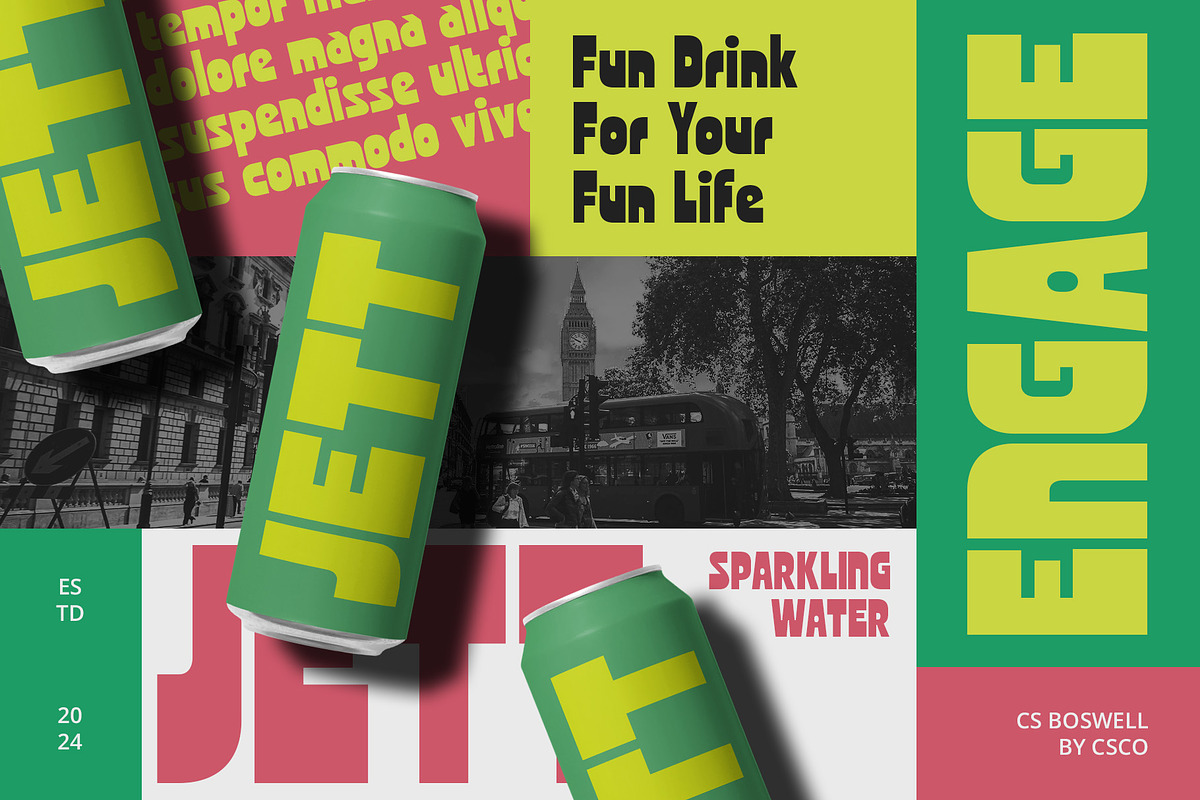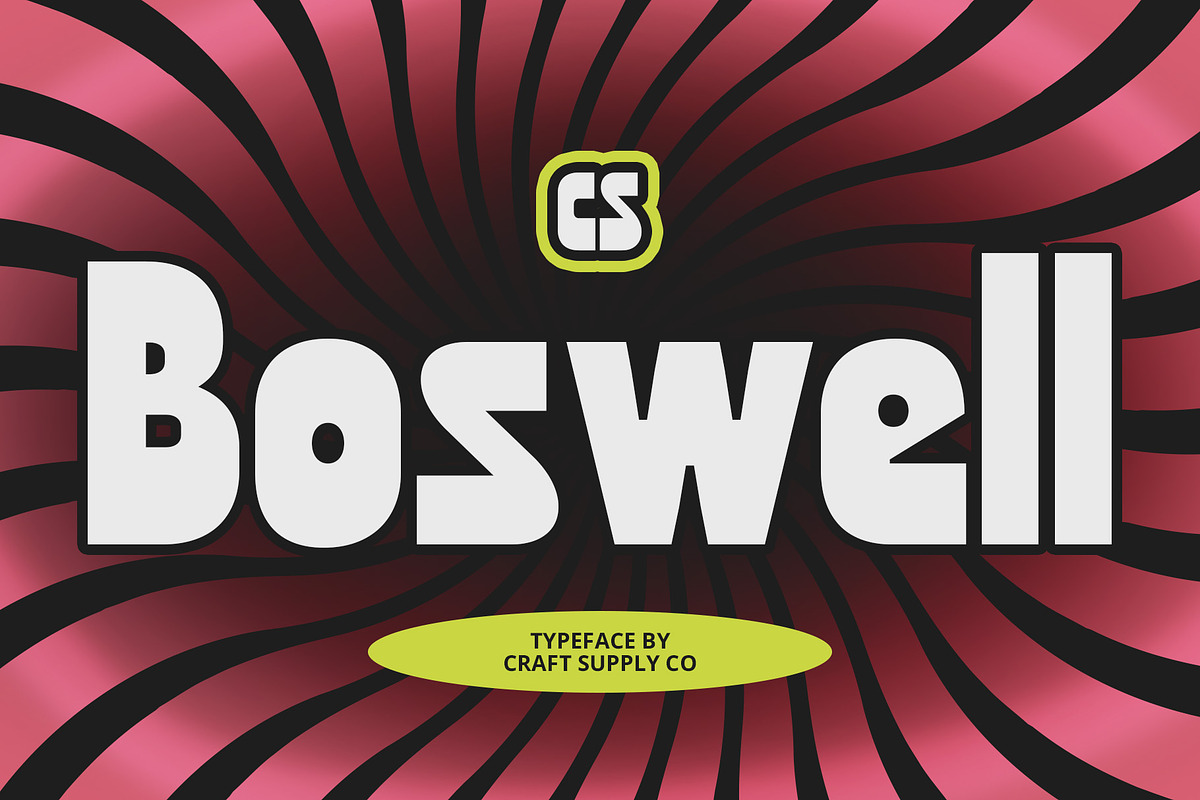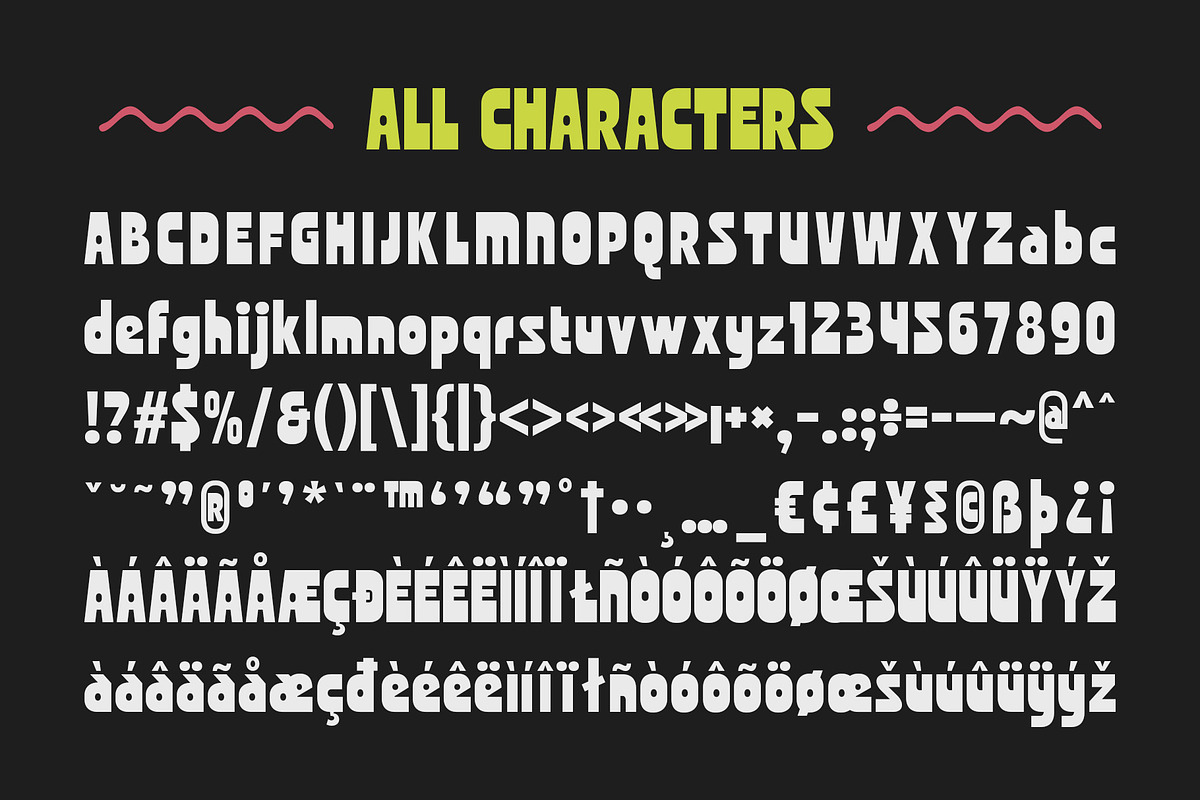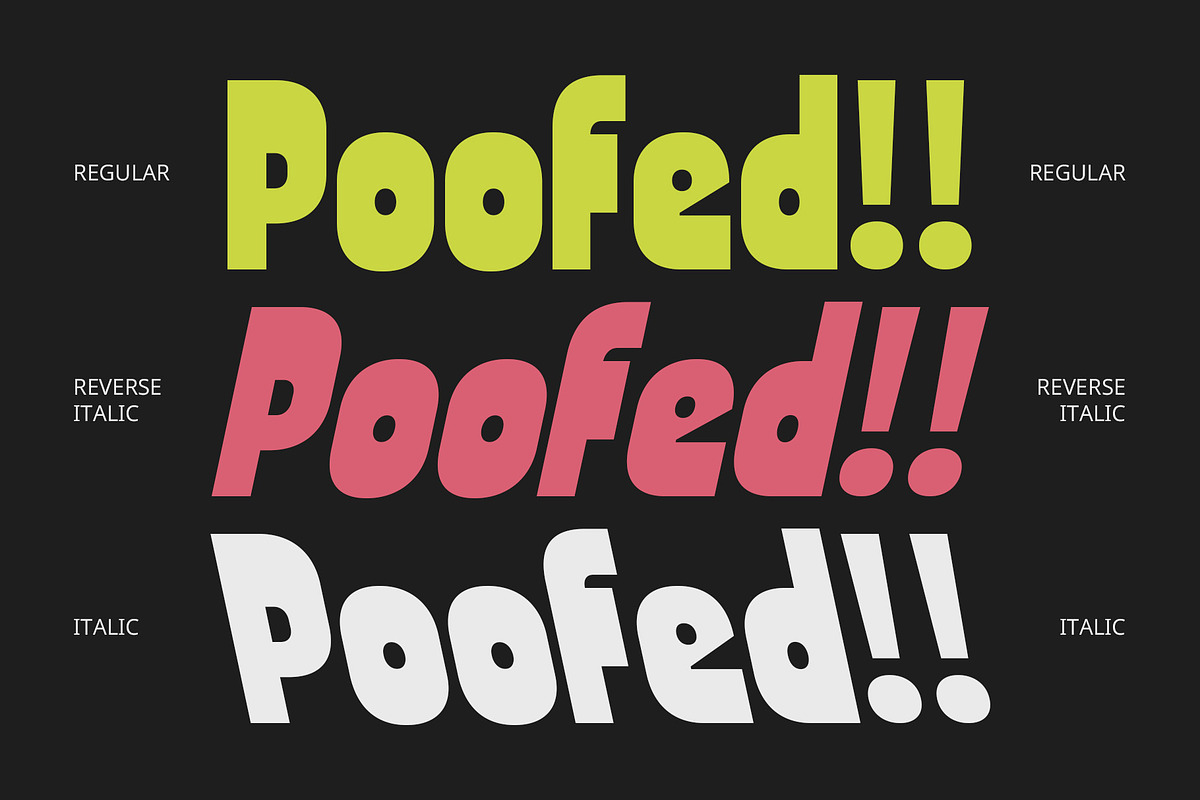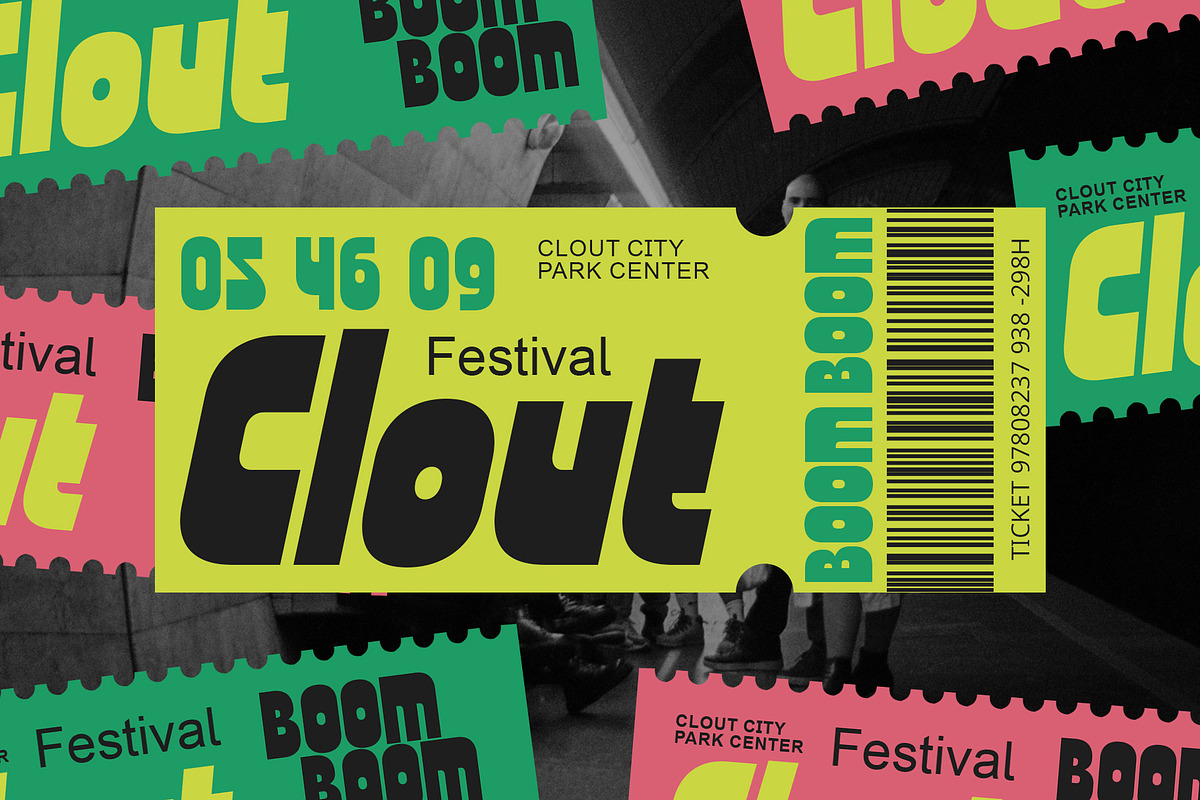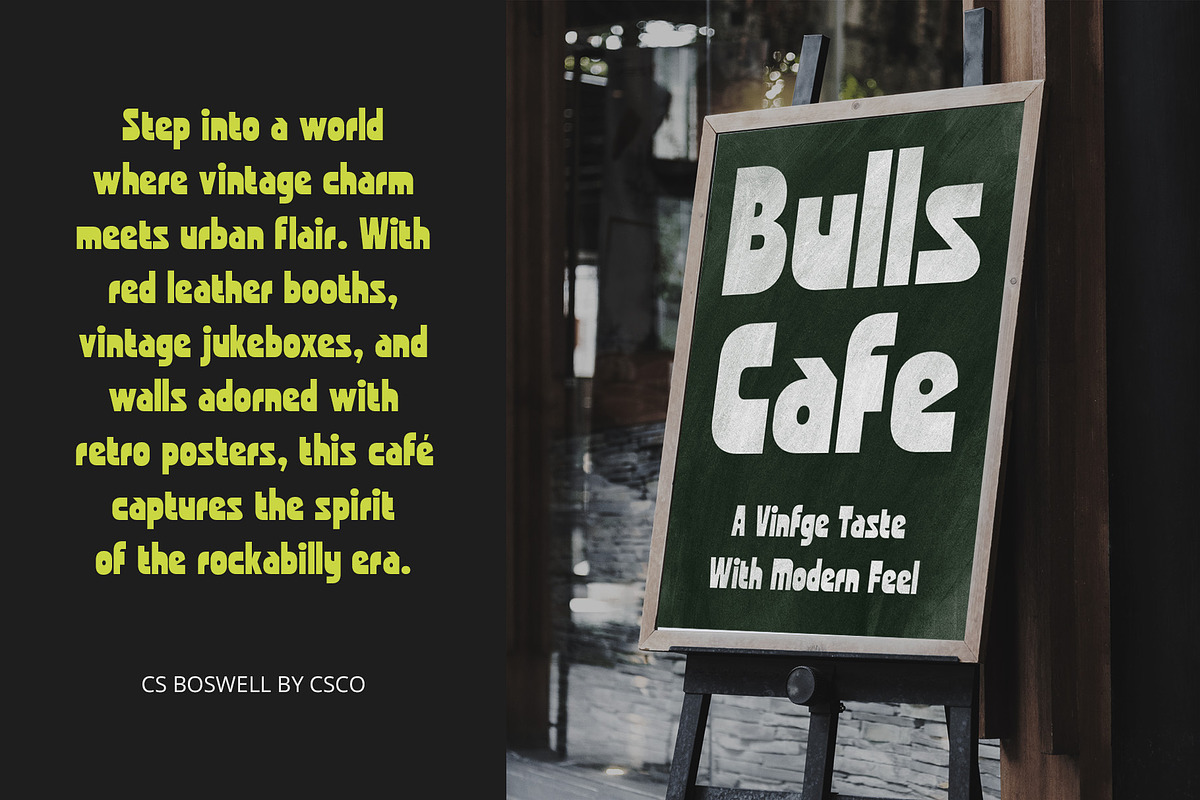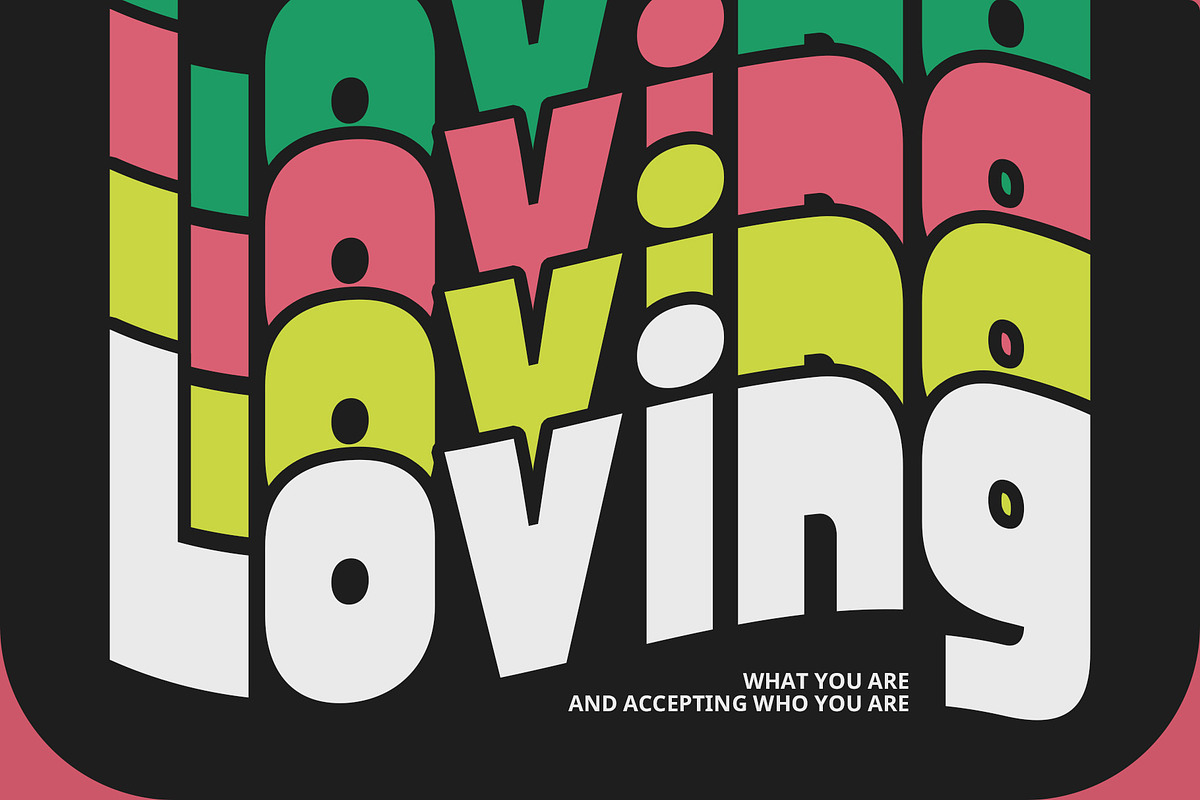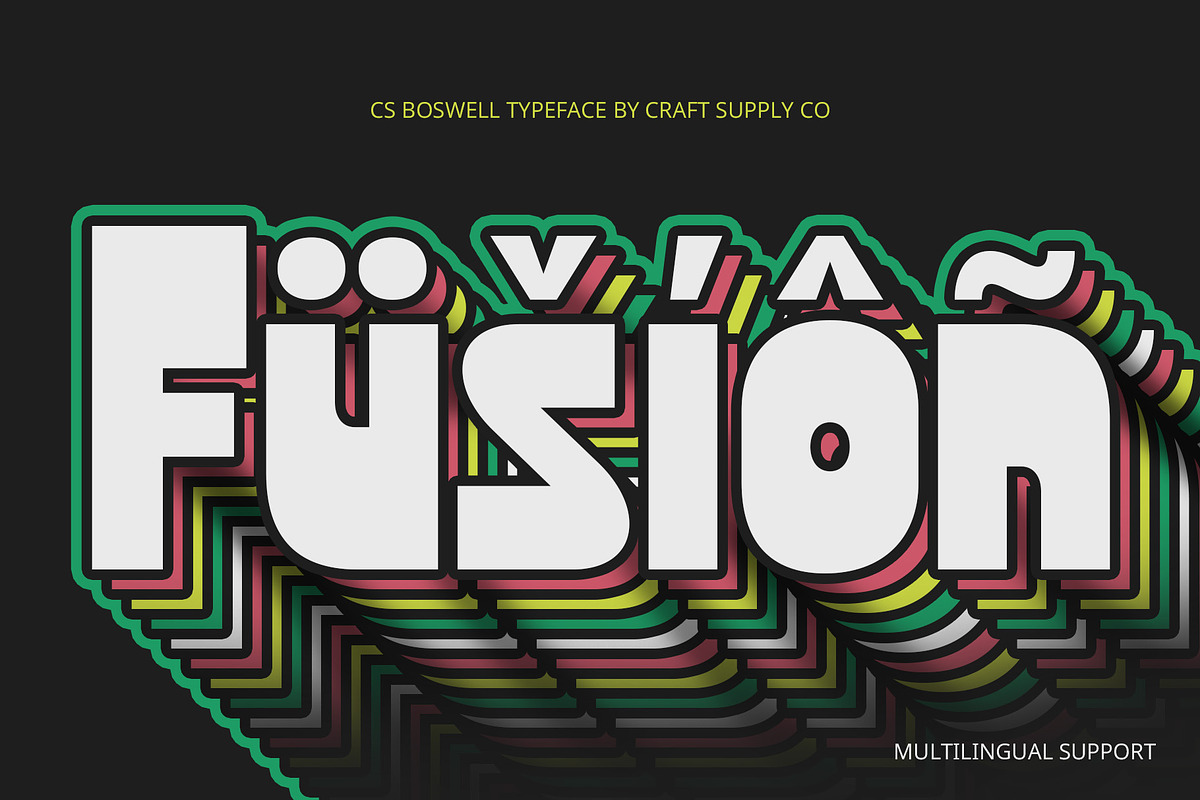
CS Boswell – Bold Font
CS Boswell – Bold Font: Bold, Friendly, and Funky Sans Serif
Modern Sans Serif with Bold Strokes and Playful Details CS Boswell is a sans serif font that embraces boldness and injects a sense of fun with its unique design elements. It takes the clean lines of a traditional sans serif and amplifies them with thick strokes, rounded corners, and subtle quirks, resulting in a typeface that feels both contemporary and approachable.
Commanding Presence with Thick, Bold Strokes CS Boswell’s thick strokes immediately command attention, giving text a strong and confident presence. This boldness ensures that headlines, titles, and other key elements stand out effectively, making it ideal for designs that need to make a statement.
Friendly and Approachable with Rounded Corners The sharp edges typically found in sans serif fonts are replaced with subtly rounded corners in CS Boswell. This design choice softens the overall appearance, lending a friendly and approachable feel that makes the font more inviting and less austere.
Playful Personality through Unique Curves and Shapes CS Boswell distinguishes itself from standard sans serifs with unique curves and unconventional letterforms. These subtle variations add a touch of playfulness and personality, giving the font a distinct character that sets it apart. This makes it perfect for designs that aim to convey a sense of fun and energy.